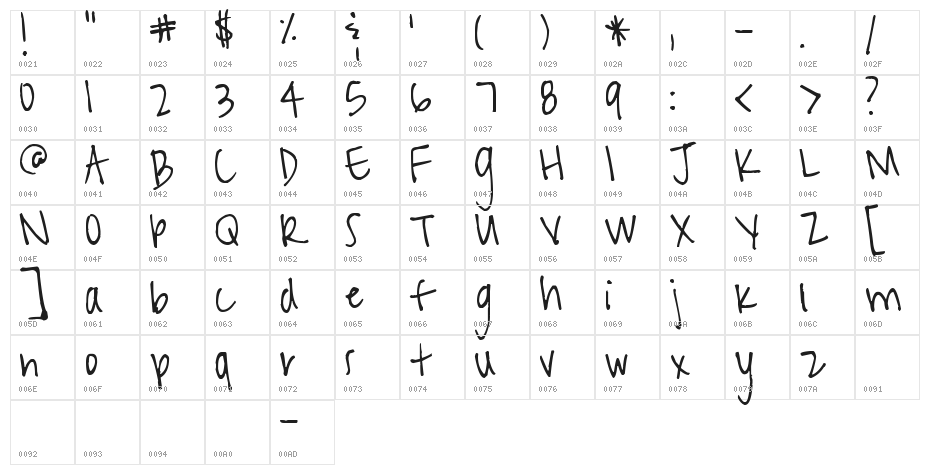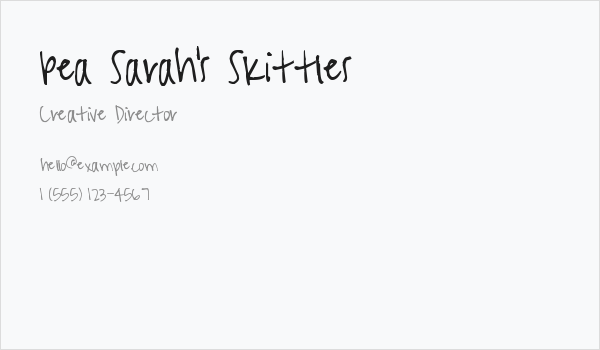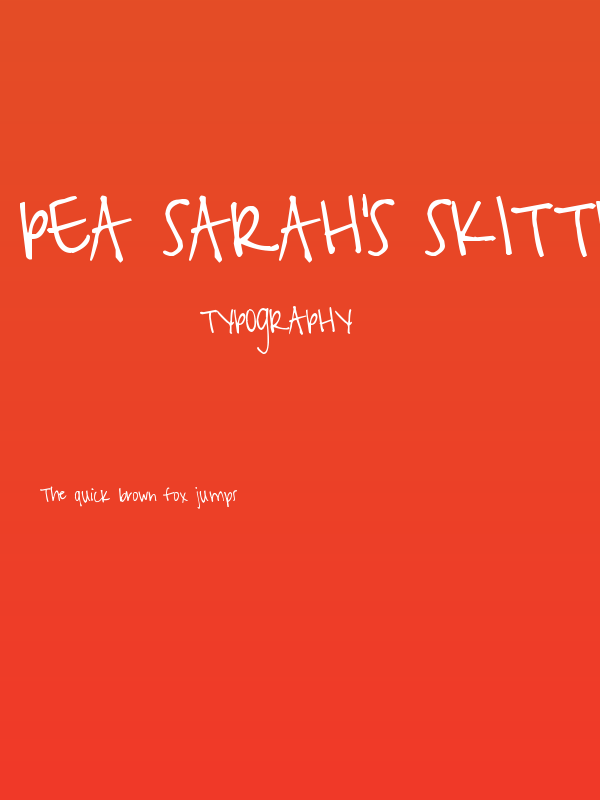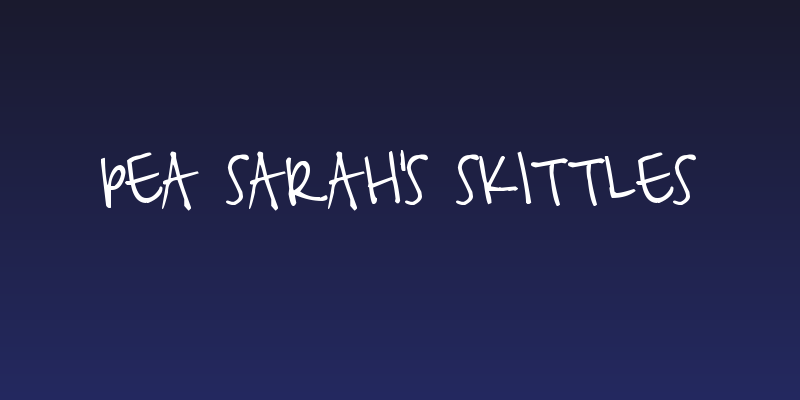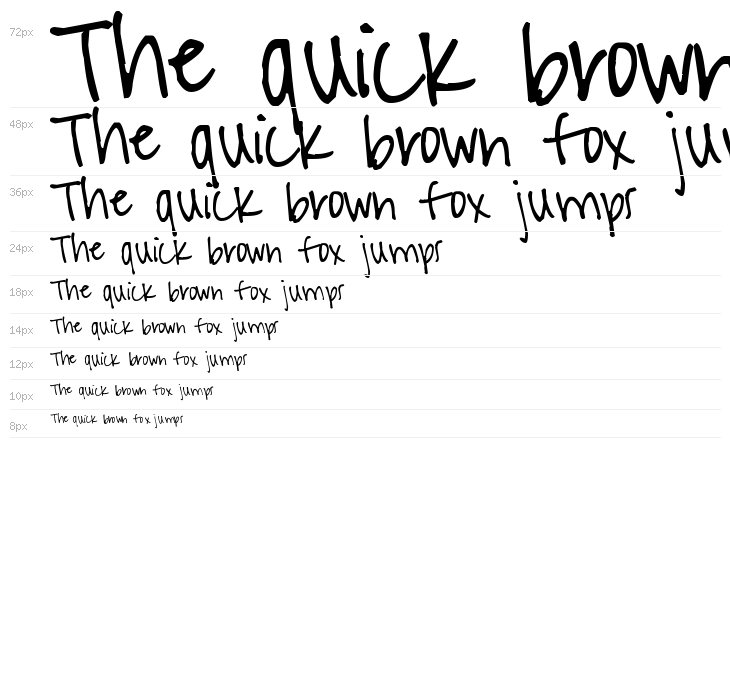
Pea Sarah's Skittles Font
Pea Sarah's Skittles Description
This font exudes a playful and casual handwritten style, characterized by its loose and informal strokes. The letters are unevenly sized and spaced, giving it a whimsical and spontaneous appearance. The uppercase and lowercase letters maintain a consistent flow, while the numerals and special characters add to its quirky charm. The overall look is reminiscent of a personal note or doodle, making it perfect for projects that require a touch of personality and creativity.
Overall StyleCasual, Whimsical
Use CaseHeadlines, Informal notes, Creative projects
Proposed ProjectsIdeal for greeting cards, children's books, personal blogs, and creative branding projects.